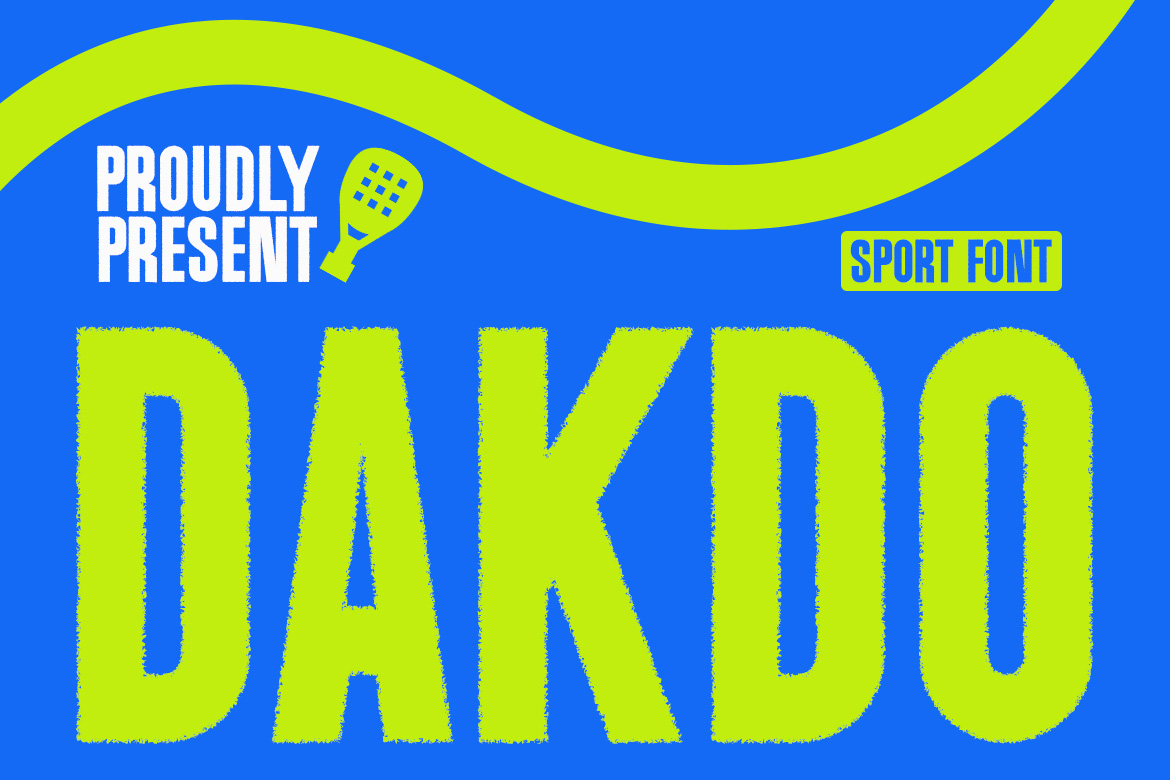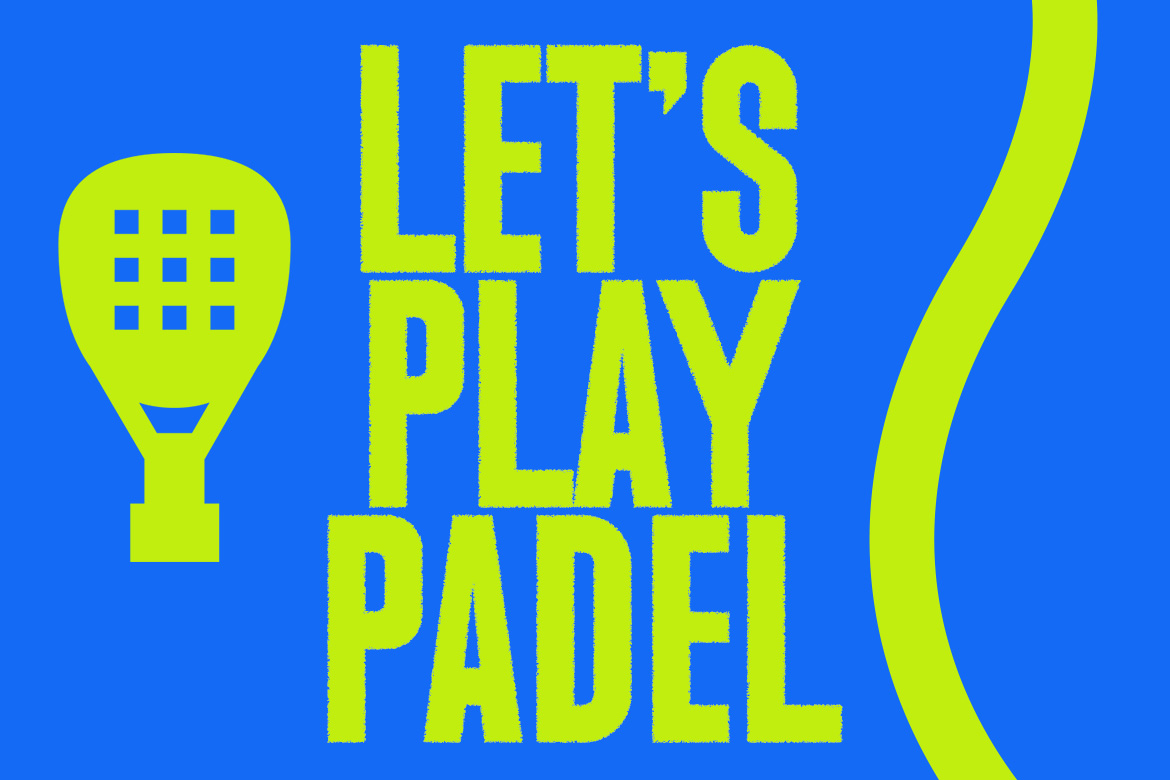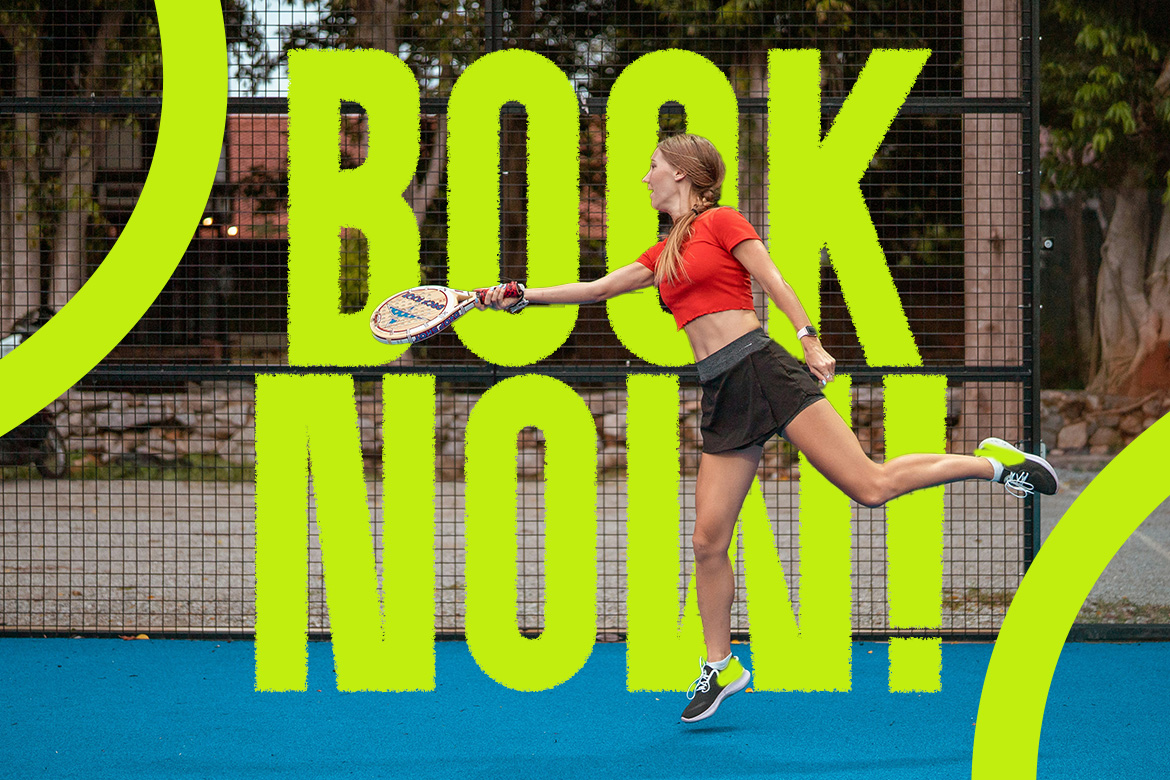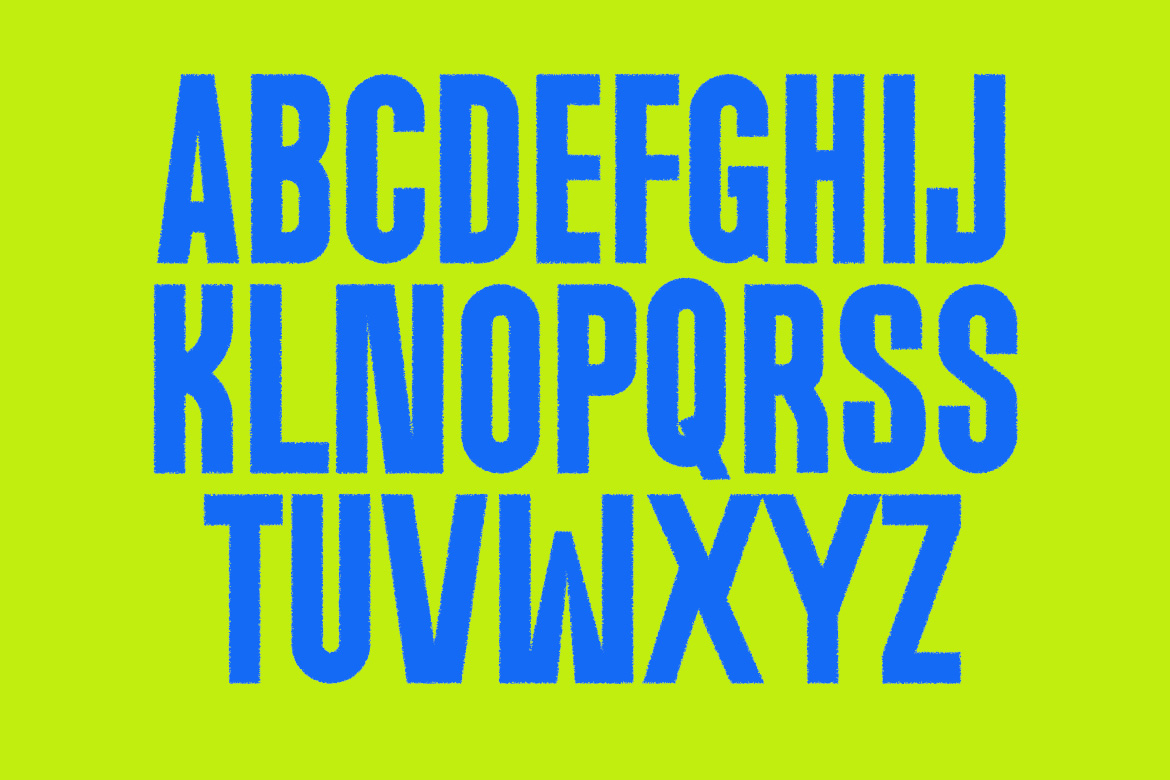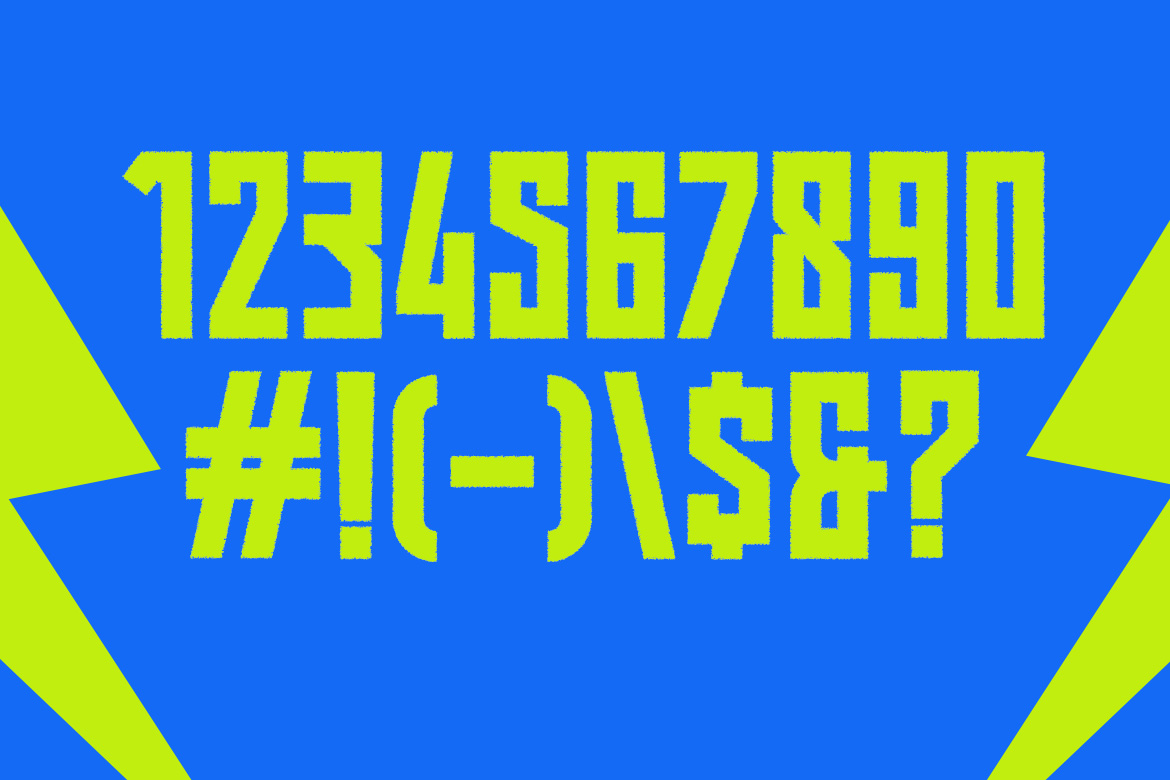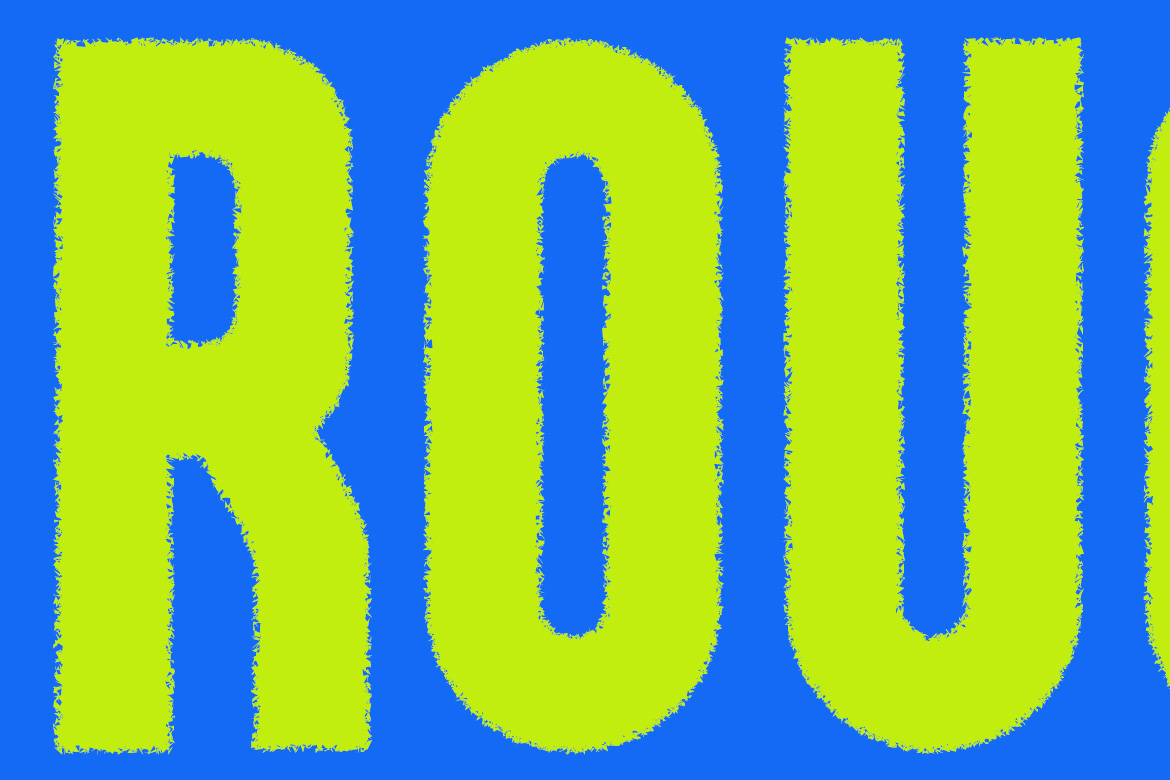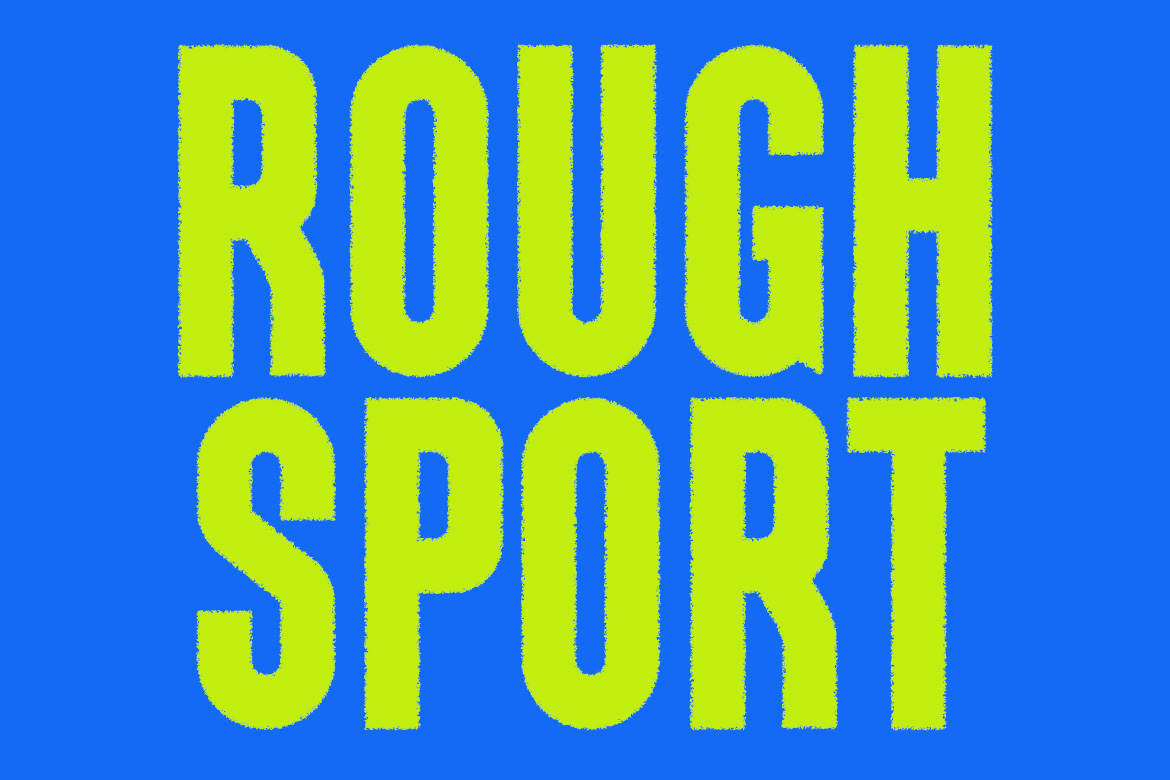
Display typeface · Latin
Dakdo
This bold, condensed sans-serif typeface features a rugged, textured outline that evokes a sense of movement and intensity. The letterforms are characterized by their tall x-height and heavy weight, providing excellent legibility and impact for large-scale applications. The 'D' and 'O' have rounded exterior corners that soften the otherwise rigid, blocky structure, while the 'A' and 'K' utilize sharp, straight strokes to maintain a clean internal geometry. The distressed edges add a tactile, grainy quality that suggests a high-performance, energetic environment. It is perfectly suited for team logos, stadium signage, and dynamic social media graphics. In Package : OTF TTF WOFF WOFF2 Feature : Uppercase (All Caps) Alternate Numerals Punctuation Easy To Install Perfect for : Social media post sports Sports Poster and Flyer Gym Template and banner